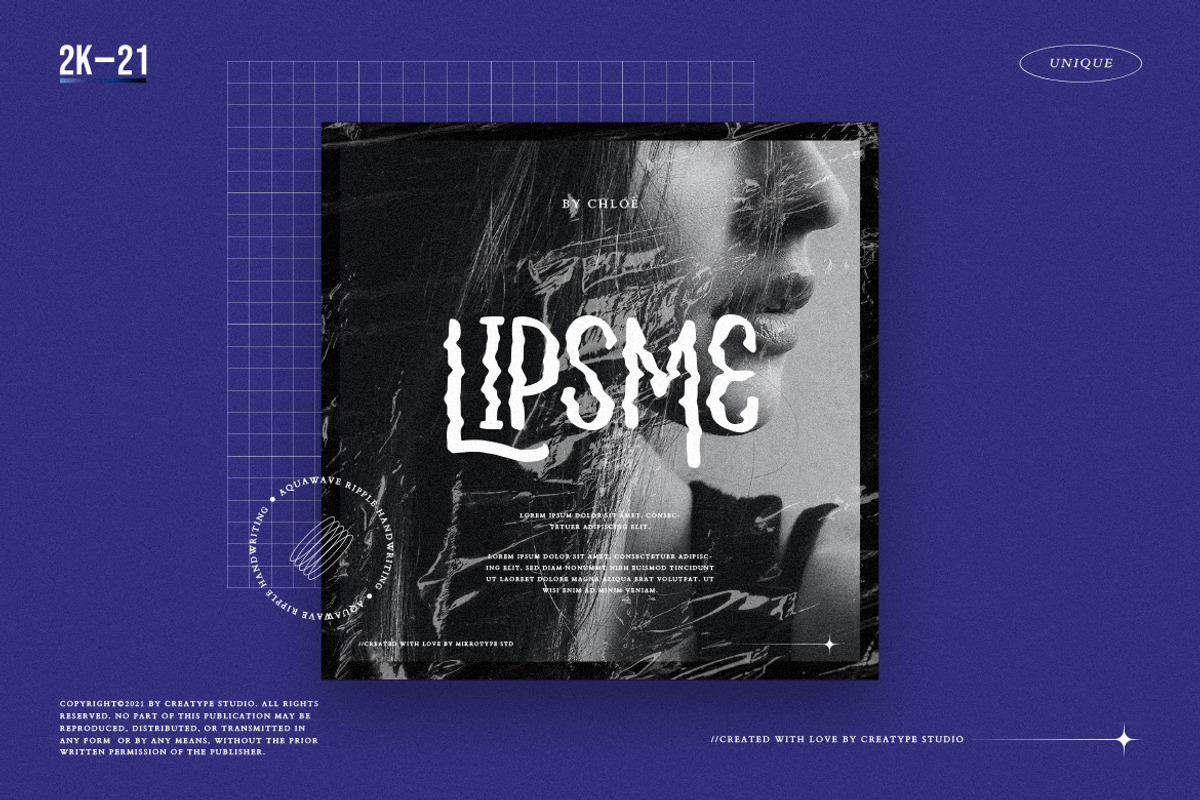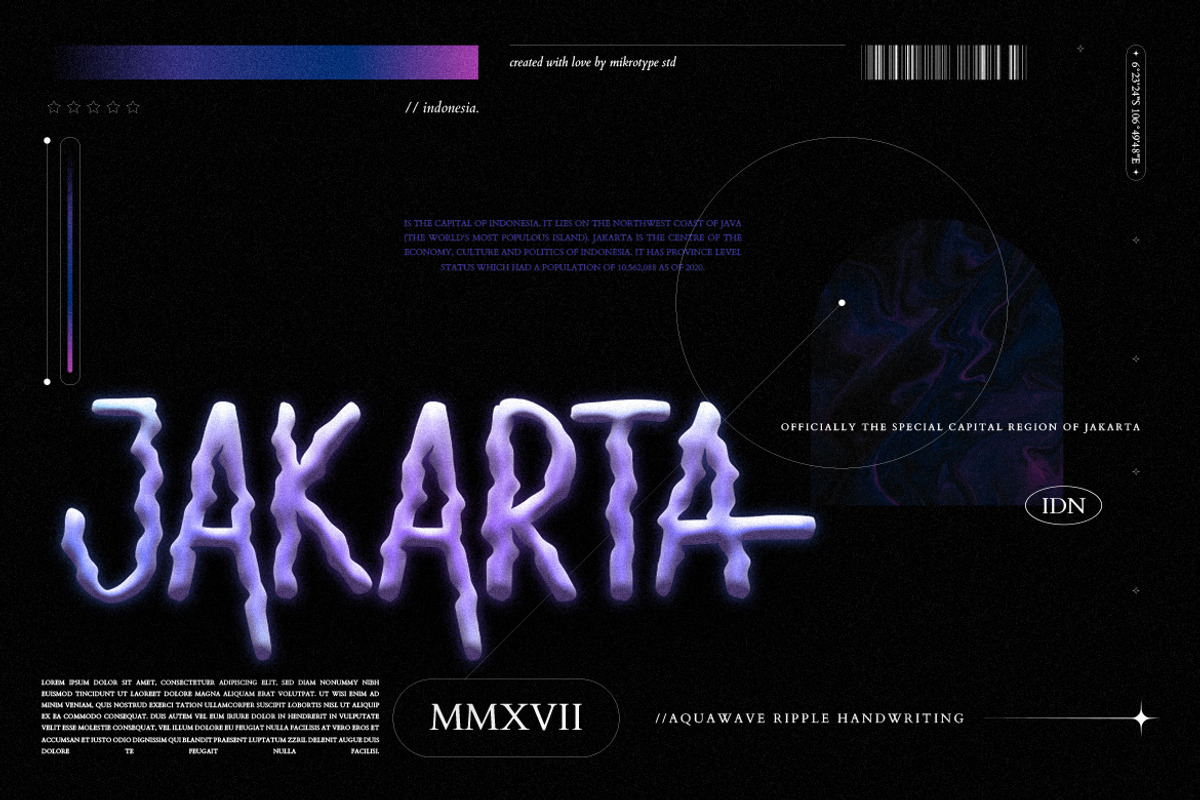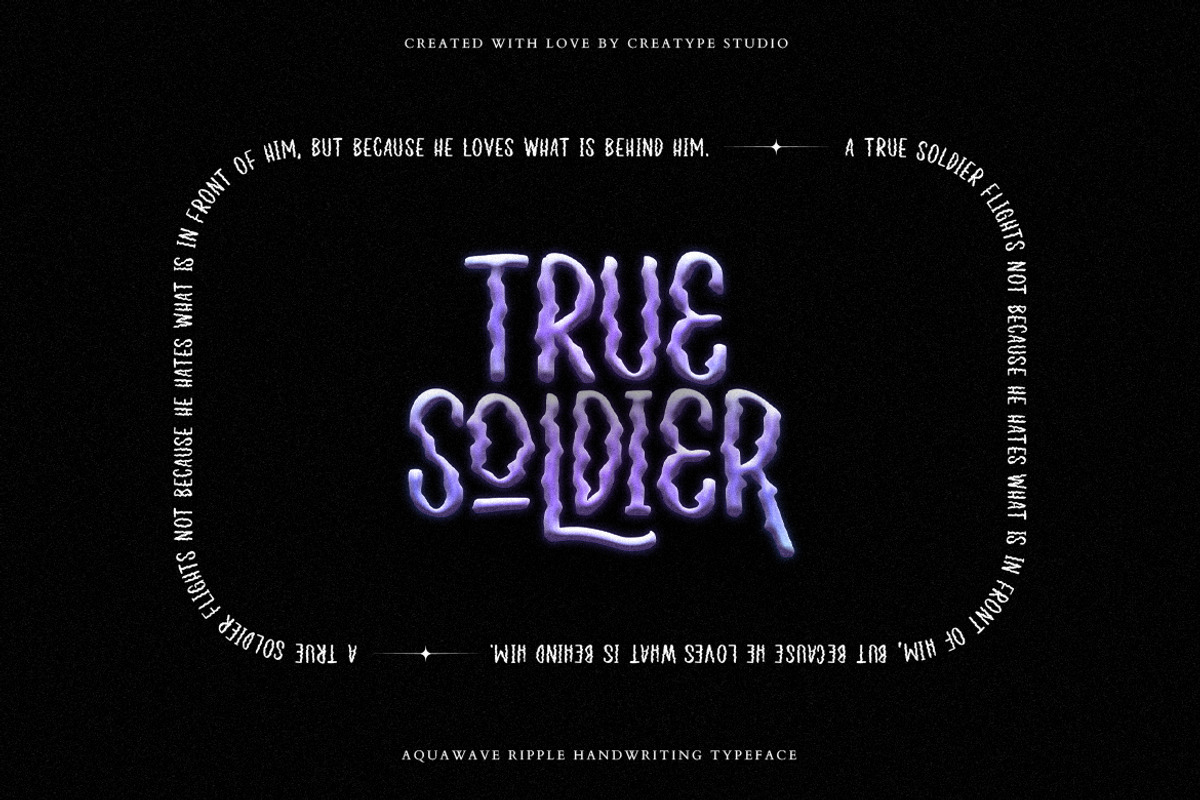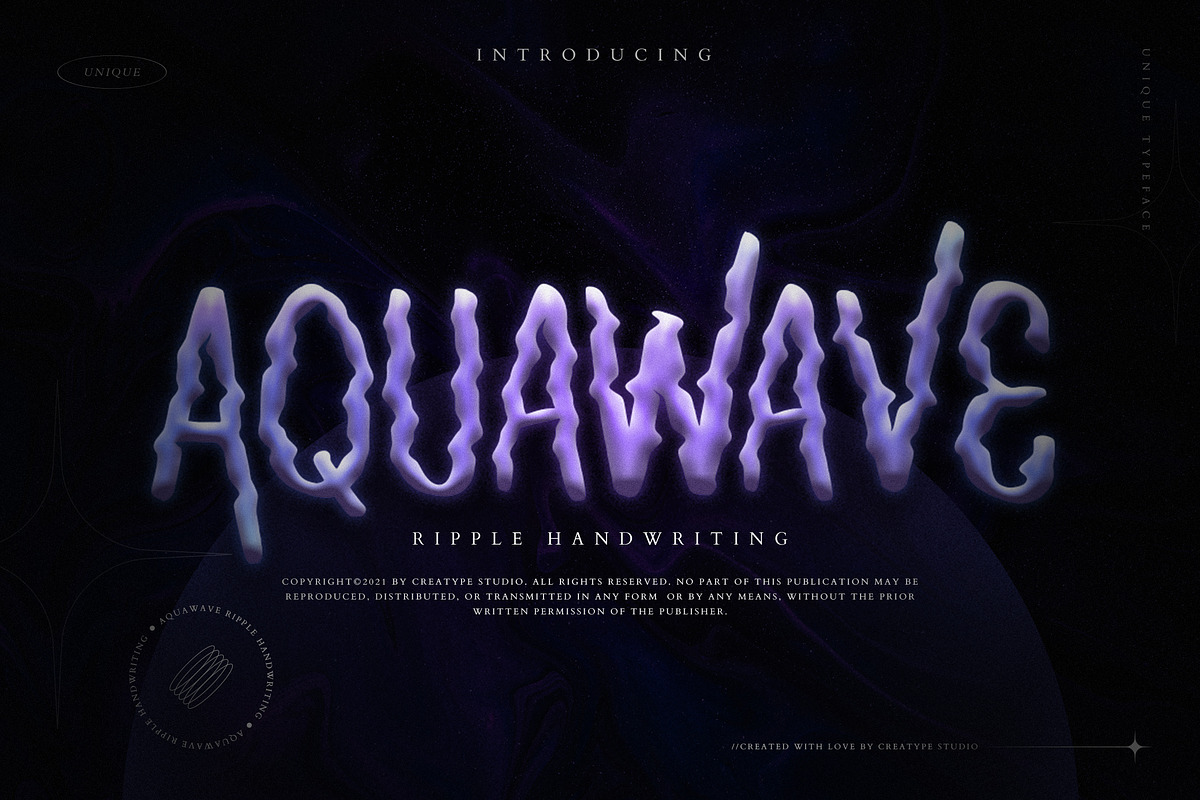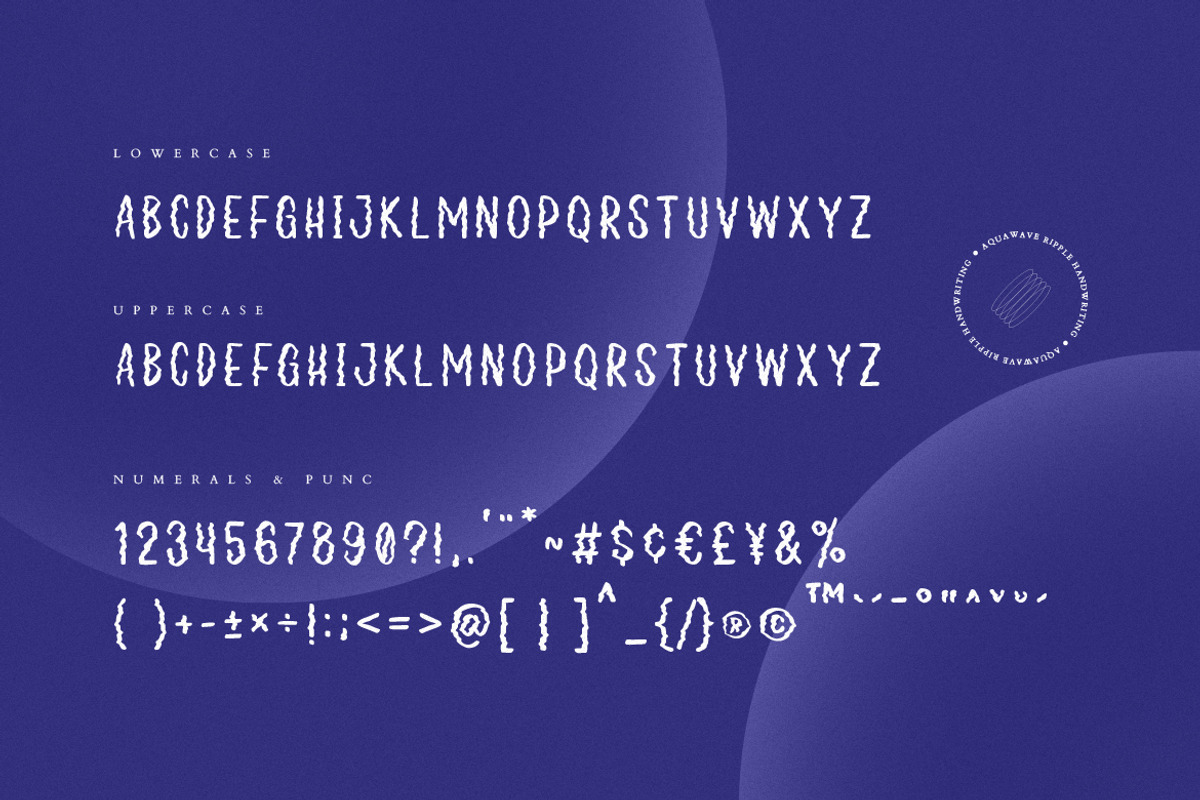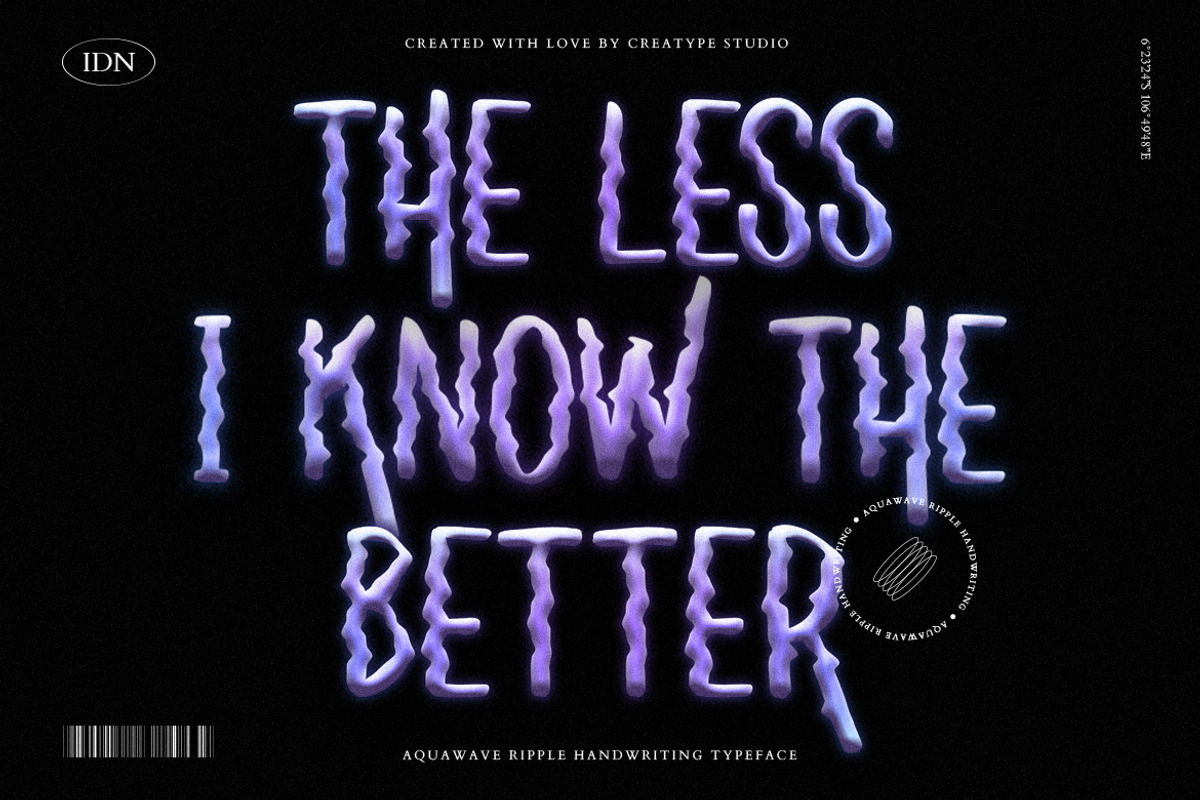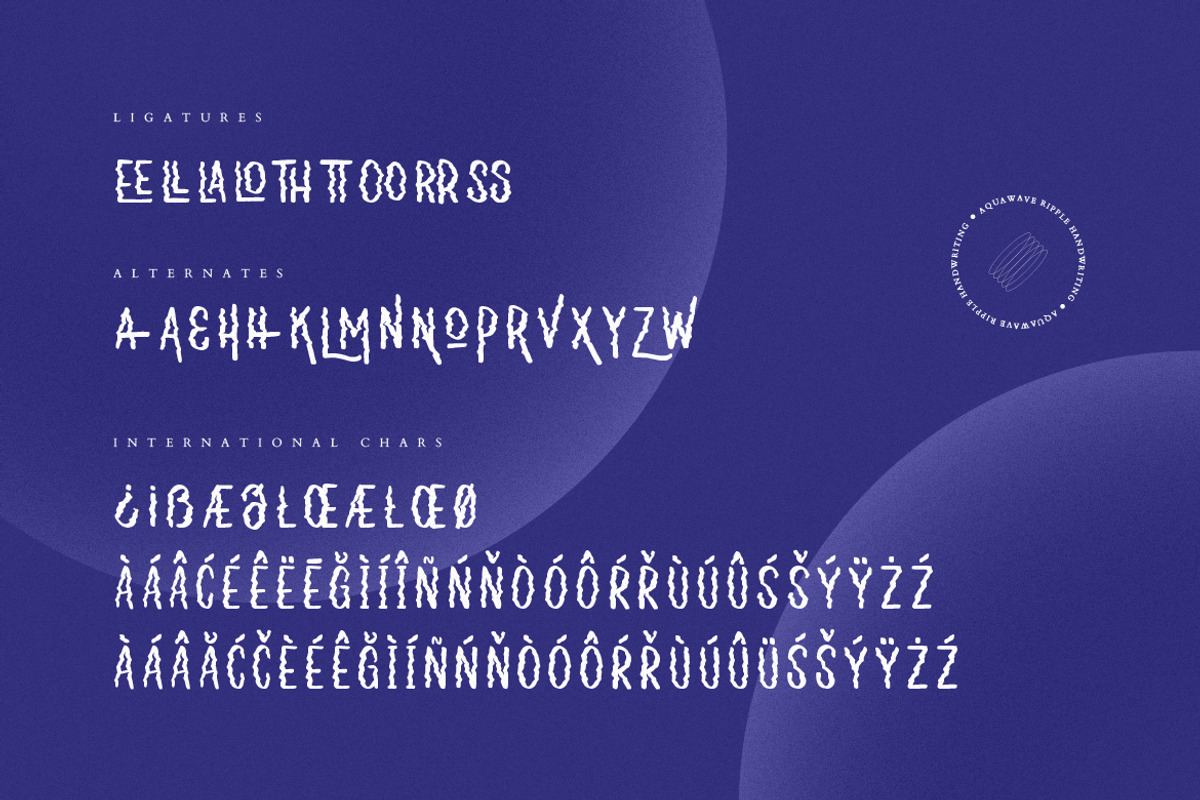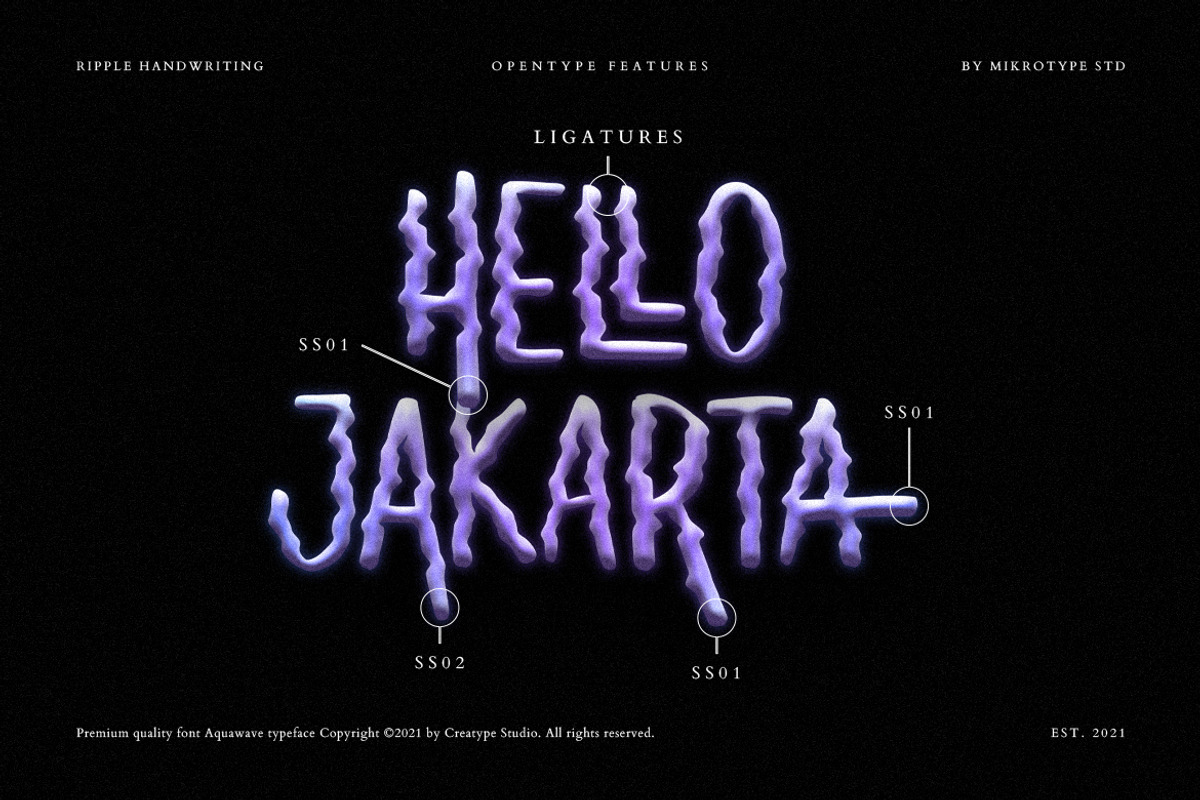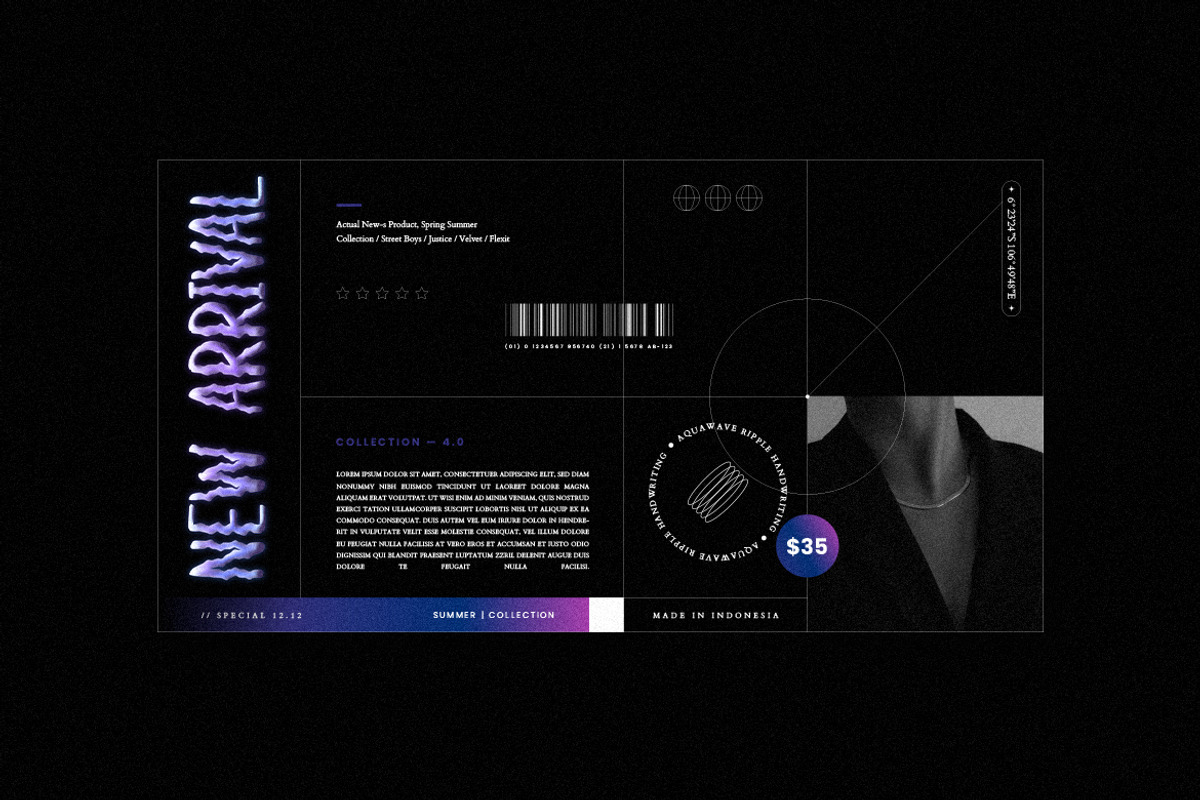
Aquawave Ripple Handwriting
Aquawave is a ripple handwriting typeface that is specially crafted to produce an extraordinary looking font. With its unique shape, this font is perfect for all your big products that want to be different.
Aquawave is perfect for branding projects, logo, wedding designs, social media posts, advertisements, product packaging, product designs, label, photography, watermark, invitation, stationery and any projects that need handwriting taste.
- Ligature & Alternate